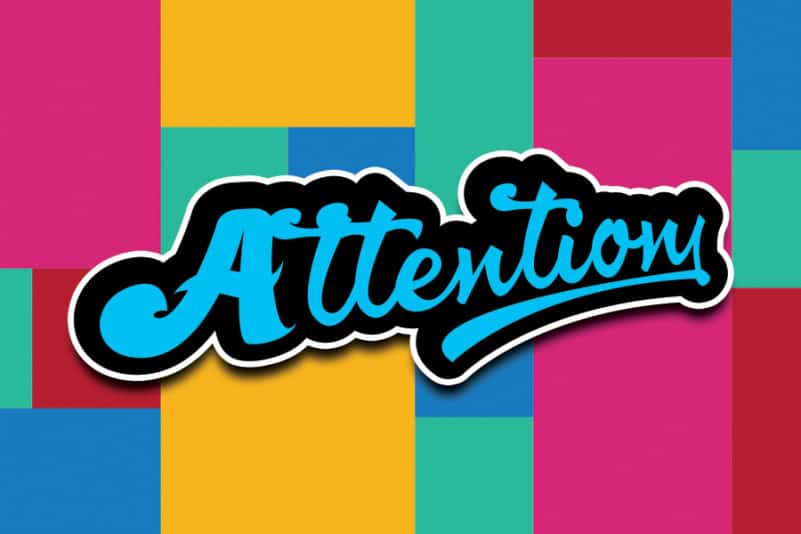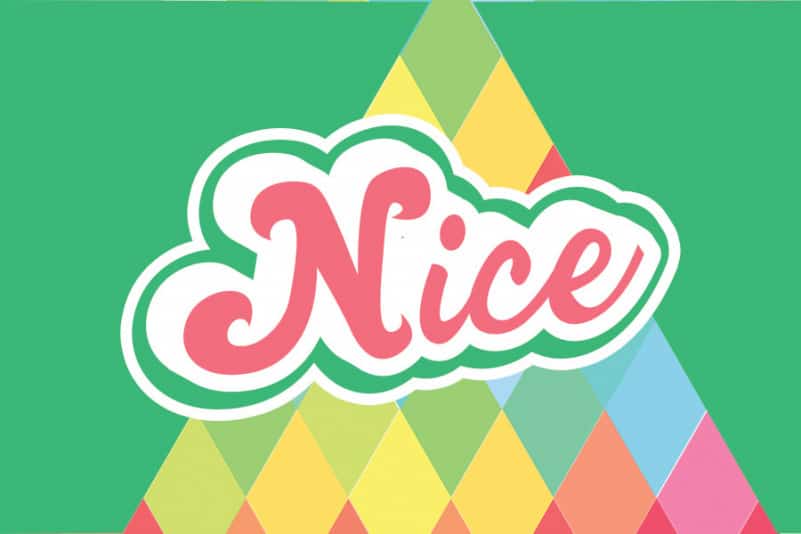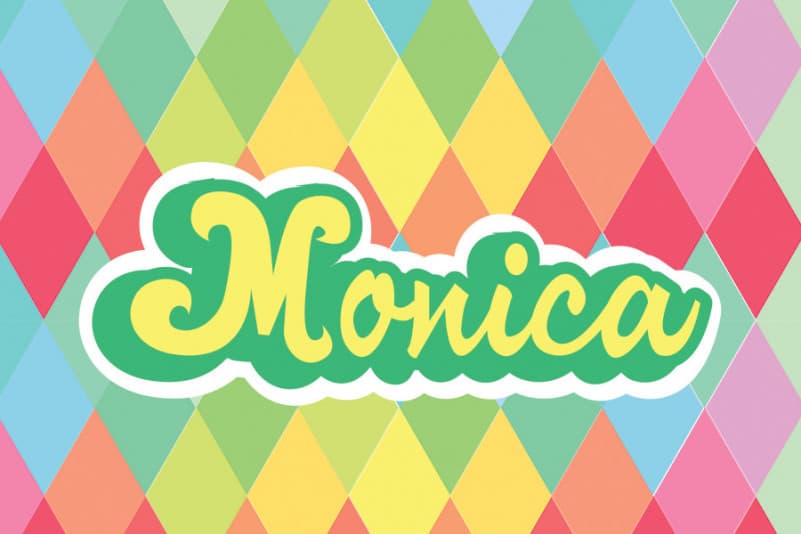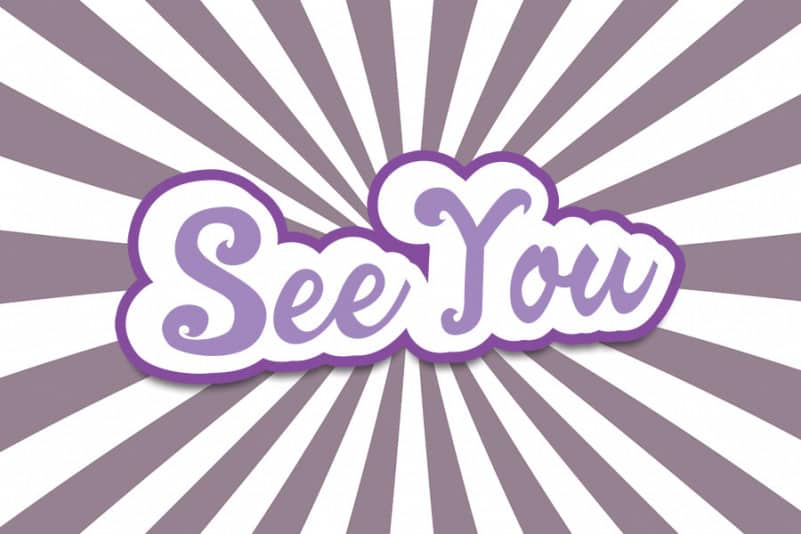
Sandbox Script Font
Sandbox Script Font is a retro, cursive and bold handwritten font, crafted to give your headlines and logotype projects a stylish touch. This font reads as strong, confident, and dynamic and can add tons of nostalgic character to your designs.